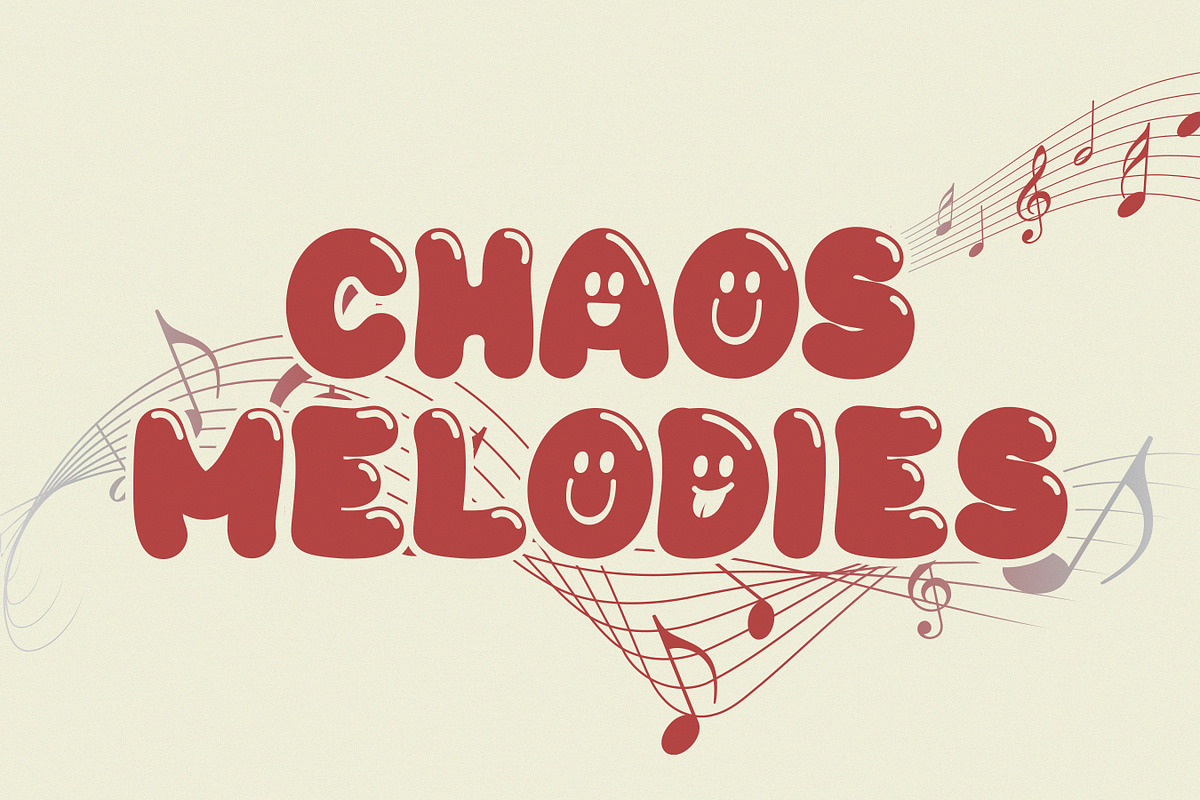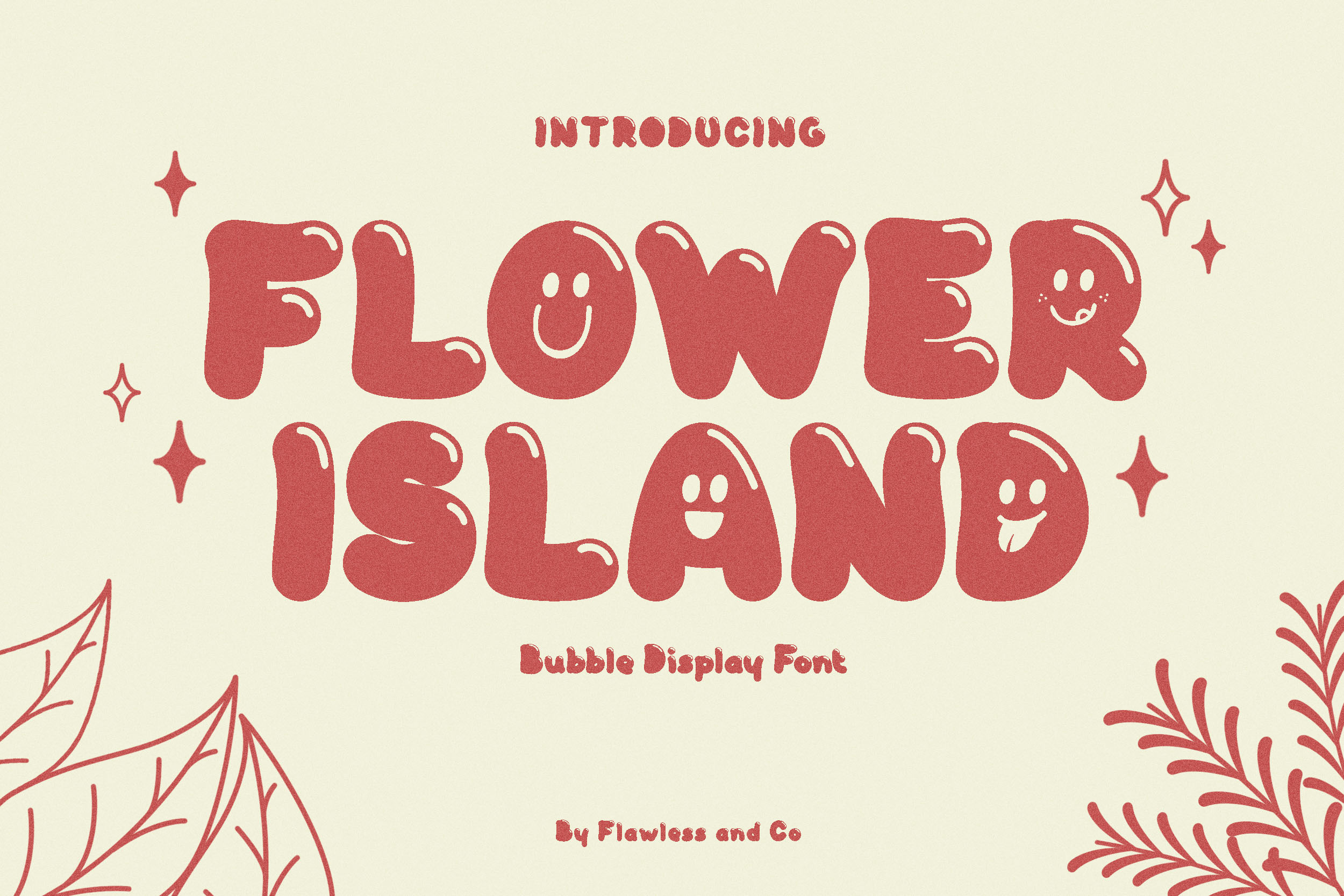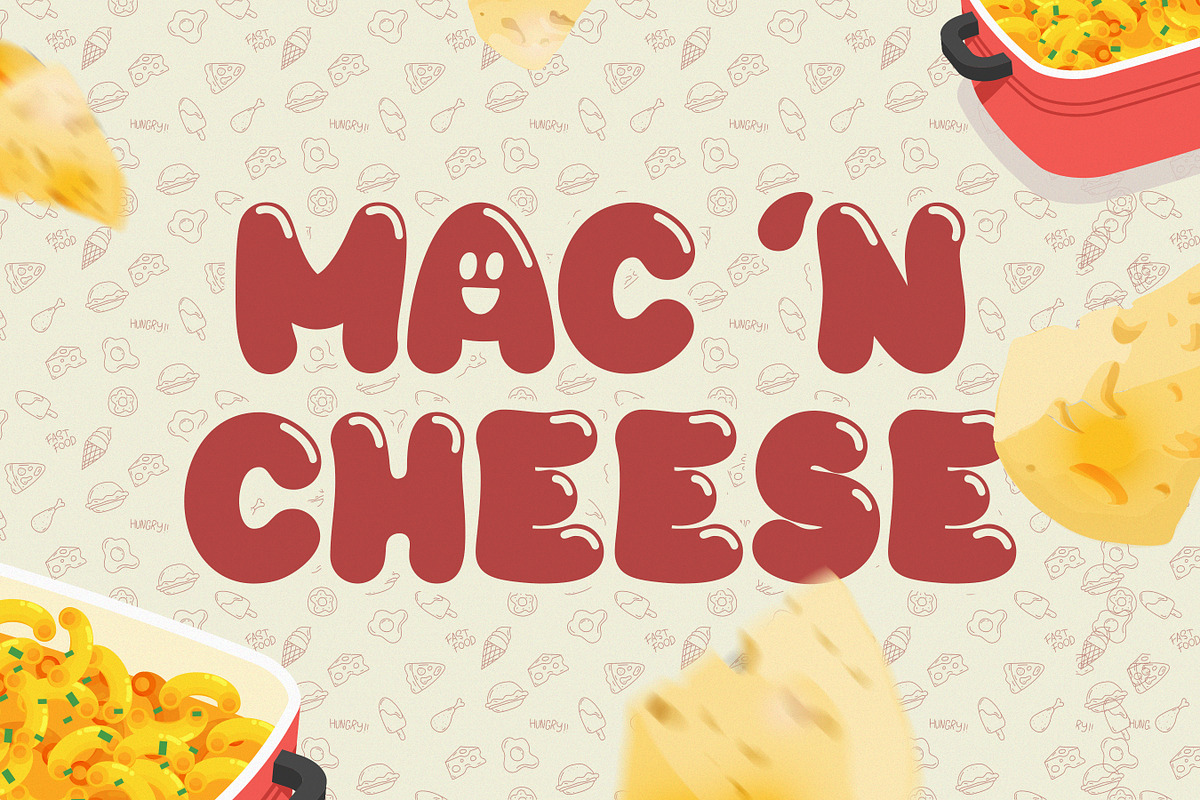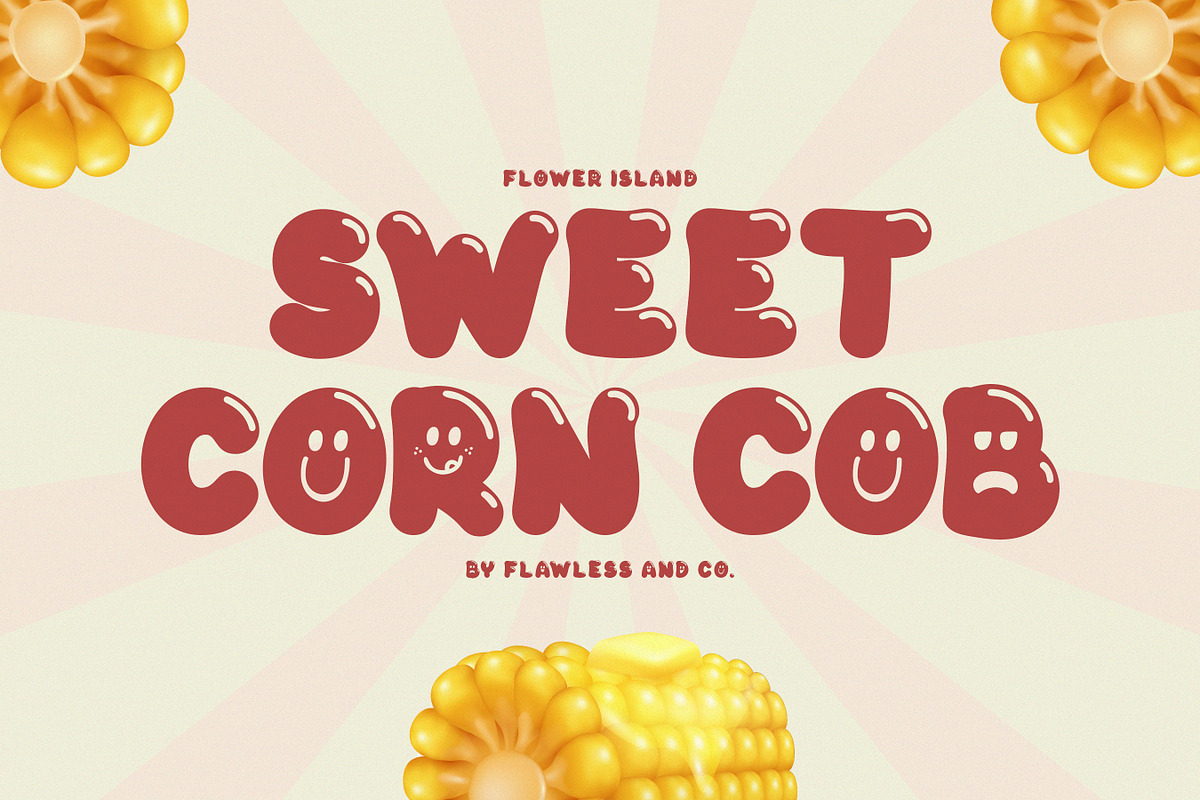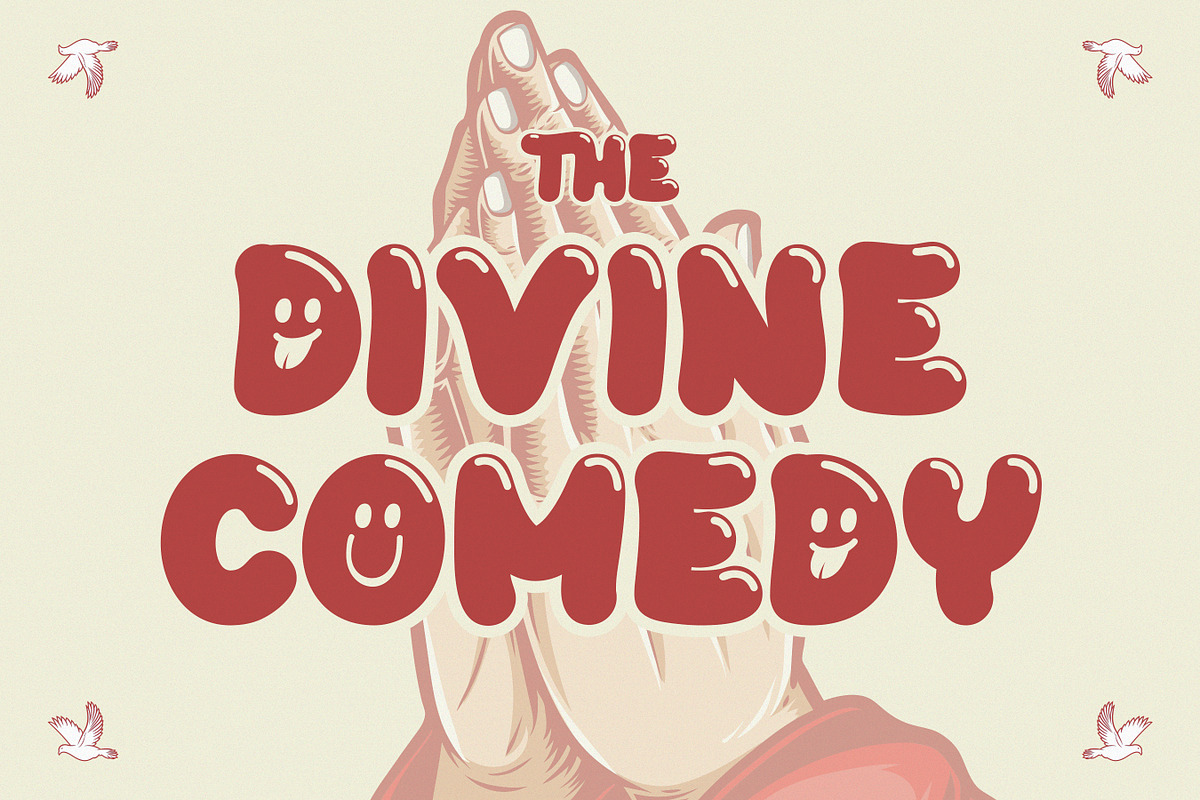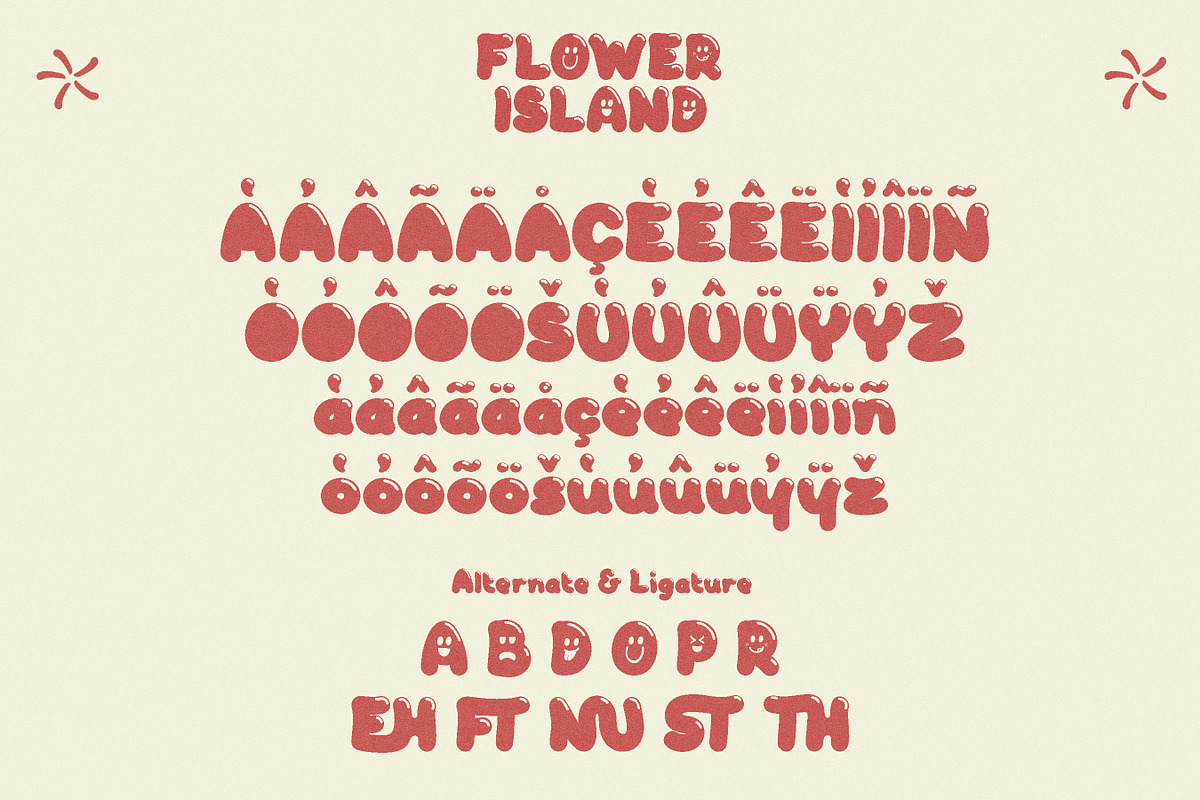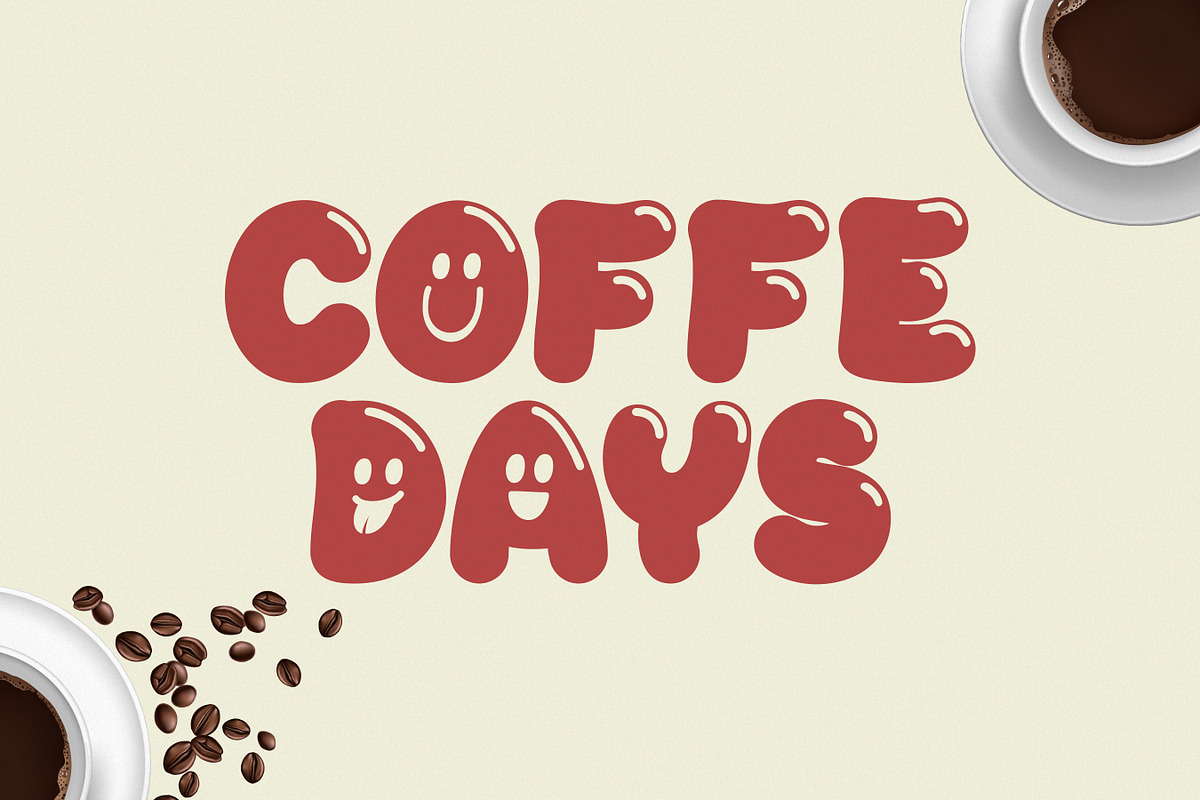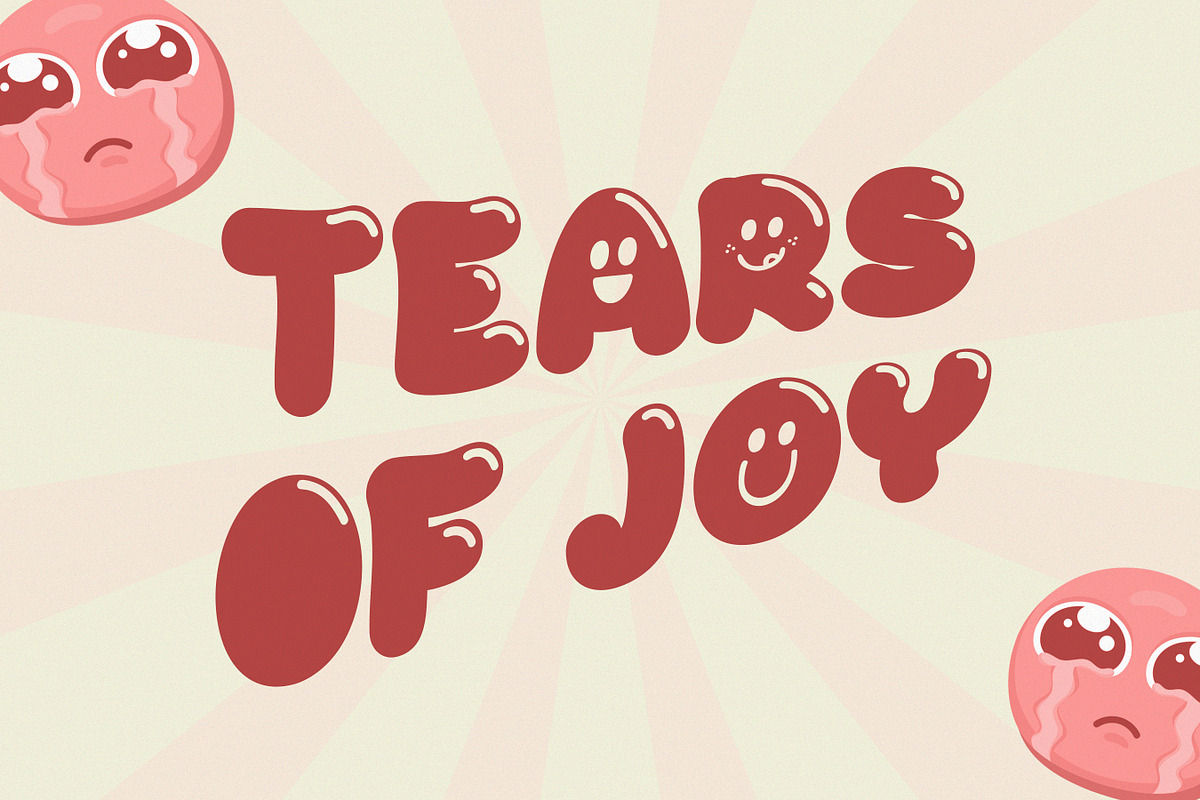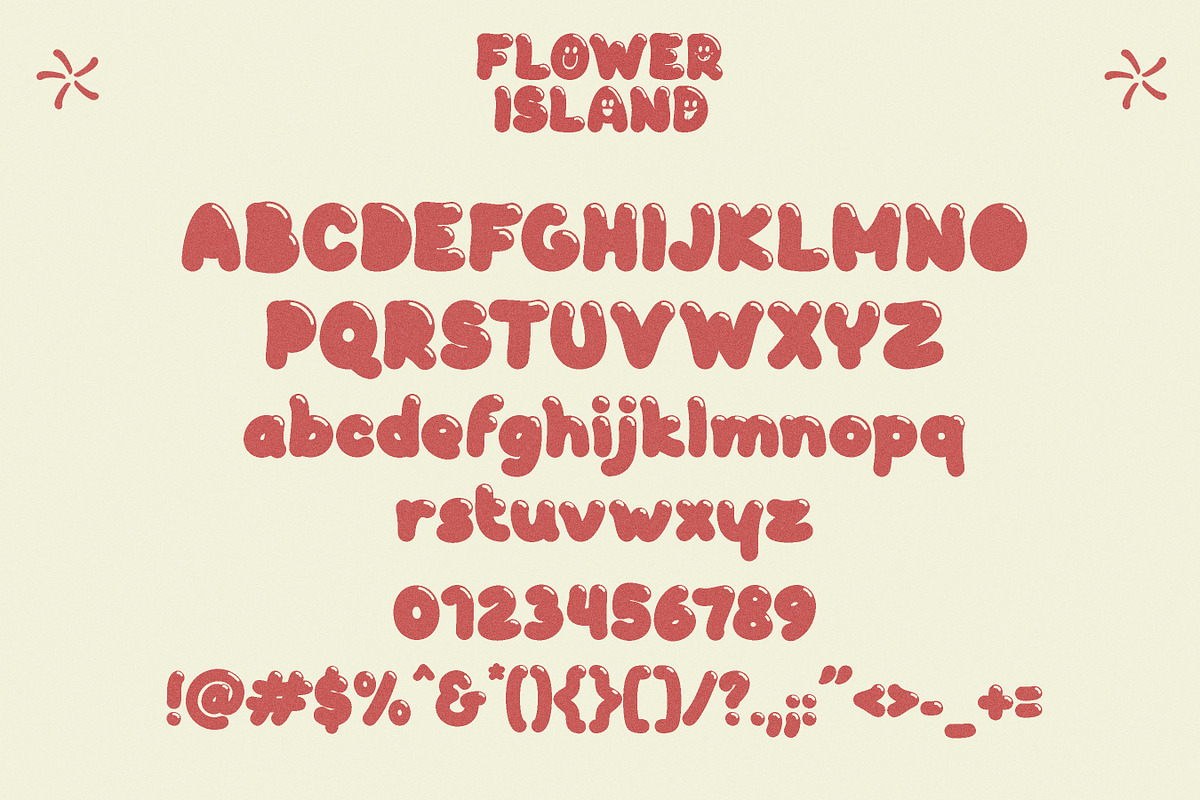
Flower Island - Bubble Display Font
Introducing "Flower Island" - A Playful Bubble Display Font. Immerse yourself in the whimsical world of "Flower Island," a delightful bubble display font that adds a touch of fun and playfulness to your designs. With its rounded letterforms and cheerful demeanor, Flower Island is the perfect choice for projects that require a burst of creativity and charm.
Multilingual Uppercase alphabet A-Z Lowercase alphabet a-z Alternate Character Numbers 0-9 Some punctuation